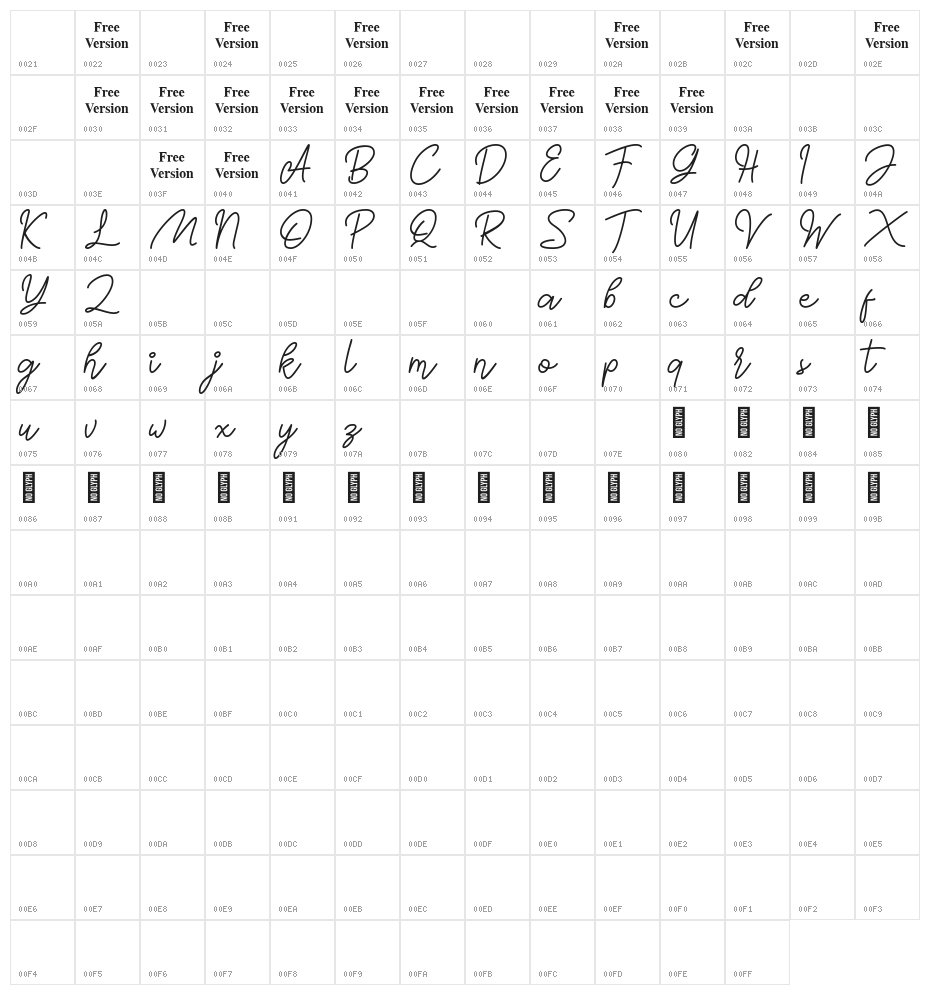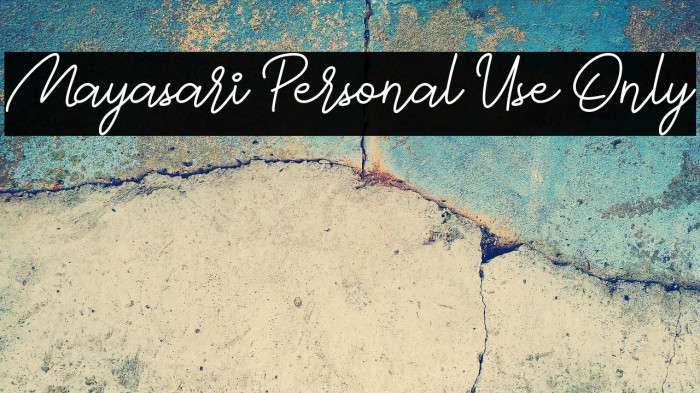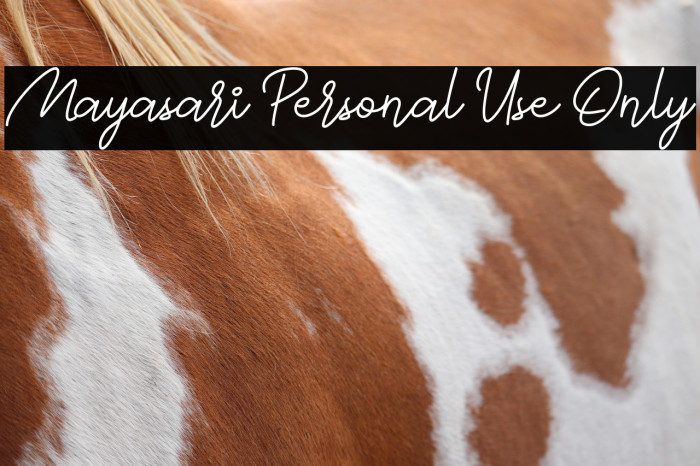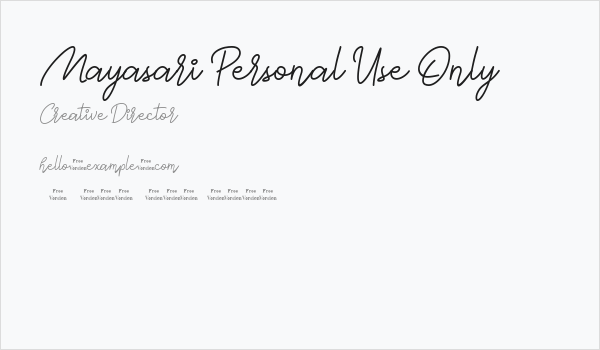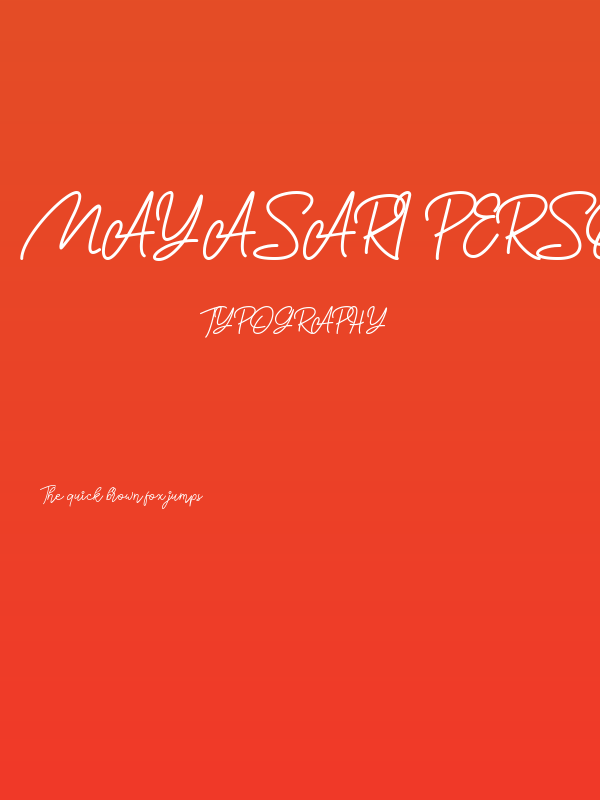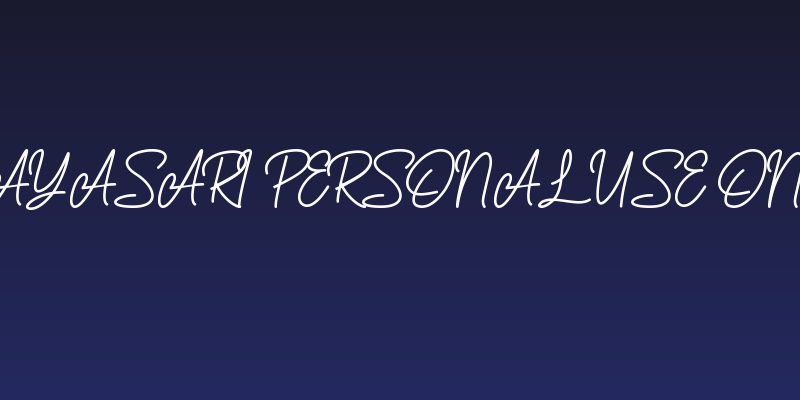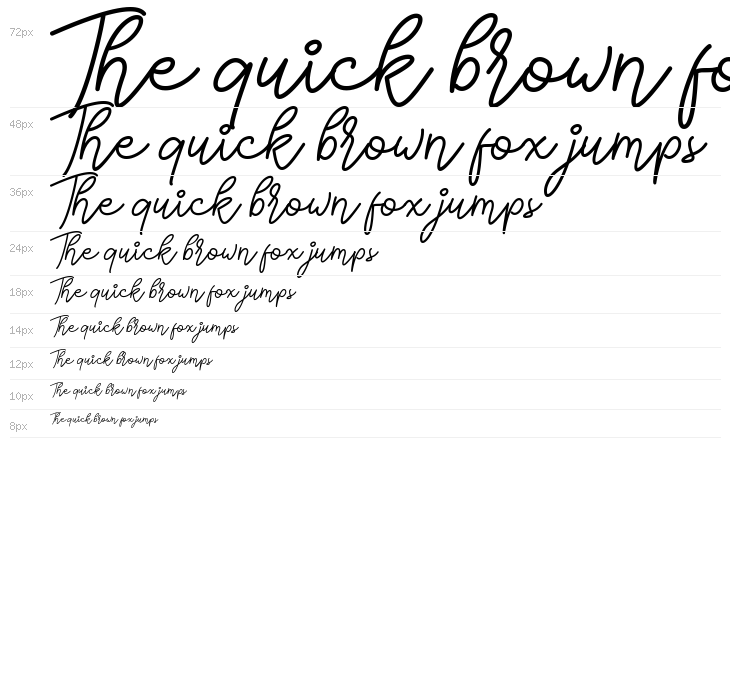
Mayasari Personal Use Only Font
Mayasari Personal Use Only Description
This font features an elegant, flowing script style that mimics natural handwriting. The letters are connected, creating a seamless and fluid appearance. The uppercase characters are slightly more ornate, with flourishes that add a touch of sophistication. The lowercase letters maintain a consistent style, with smooth curves and loops that enhance readability. The overall design is both graceful and stylish, making it suitable for a variety of creative projects. The font's delicate lines and balanced proportions give it a refined and polished look.
| Use Case | Logos, Invitations, Personal Stationery |
| Proposed Projects | Ideal for wedding invitations, greeting cards, branding, and personal stationery. |